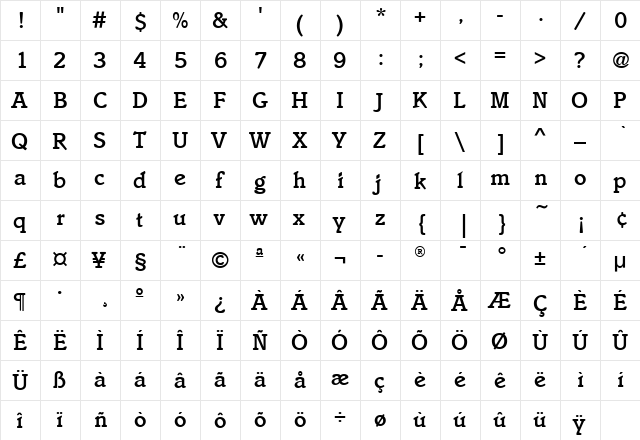
ItaliaMd Medium
Design Context for ItaliaMd Typeface
ItaliaMd offers clean, dependable letterforms without strong stylistic allegiance, making it a practical choice for designers who need flexibility.